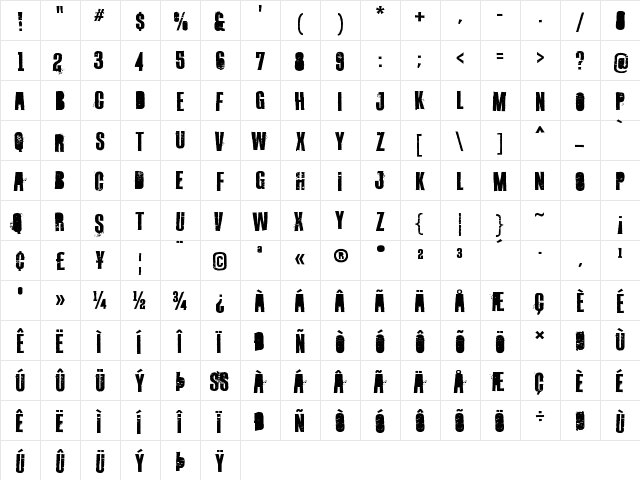
Octynaz Regular
Design Context for Octynaz Typeface
Octynaz is a composed and adaptable typeface that performs quietly and consistently across a wide range of design contexts.